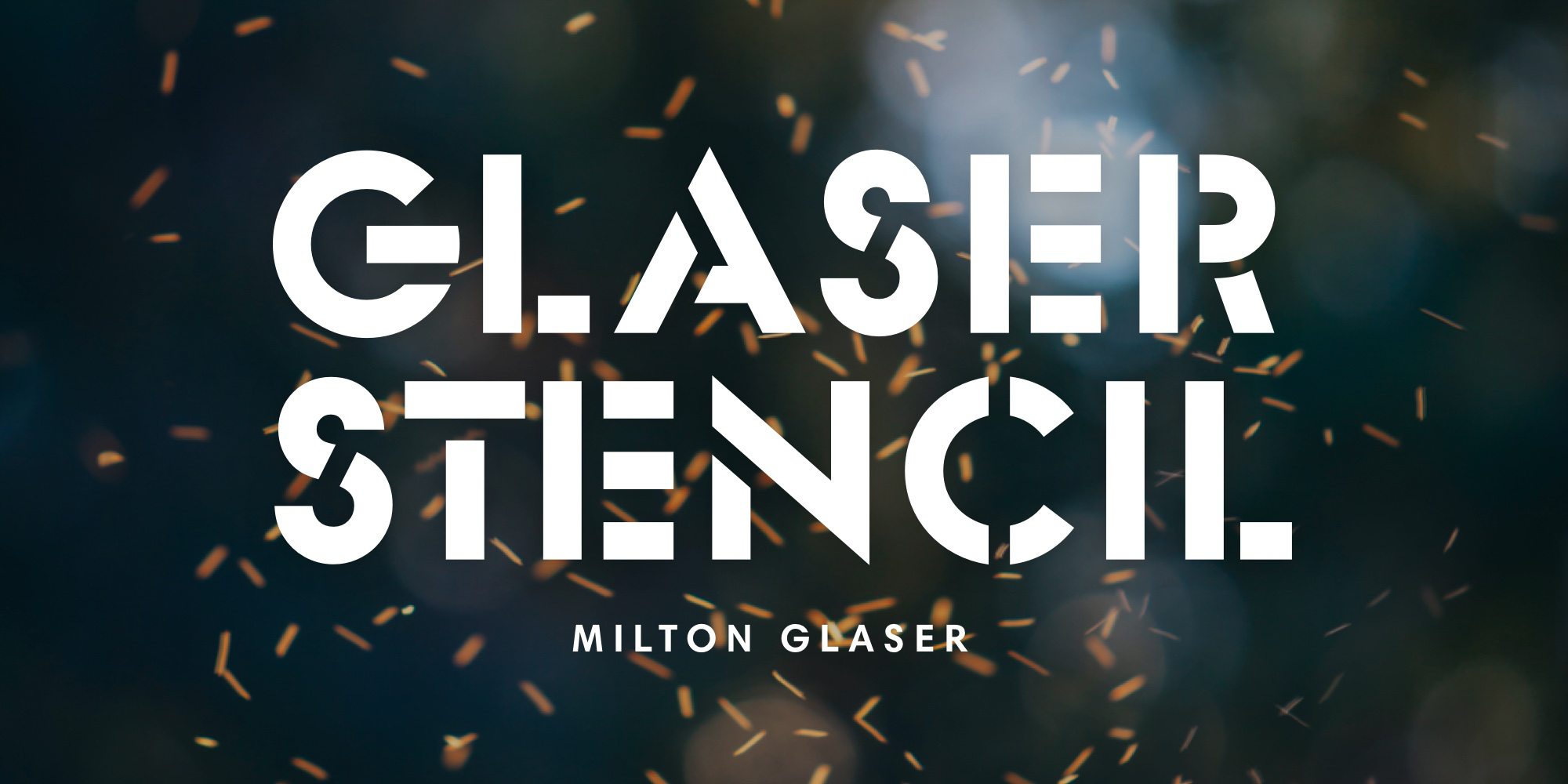
Glaser Stencil Font Free Download delivers iconic typography that combines graphic design history with contemporary functionality for memorable design applications. This commercial font requires purchase for business use, but you can download it for free for testing purposes to evaluate its distinctive stencil characteristics in your creative projects.
Glaser Stencil Font excels across diverse design applications including graphic design studio branding, protest poster recreations, vintage advertising campaigns, artistic exhibition materials, cultural institution communications, design education publications, creative agency presentations, and contemporary art projects. Its historic character makes it particularly effective for projects requiring design authority while maintaining artistic authenticity, ensuring your designs convey creative excellence and graphic design heritage across both digital platforms and artistic print materials.
What makes Glaser Stencil Font truly exciting is its masterful interpretation of Milton Glaser's influential design legacy enhanced with modern typographic precision that creates compelling artistic communications. The font features boldly crafted letterforms that incorporate iconic stencil proportions and design elements reminiscent of legendary graphic design work and protest poster aesthetics while maintaining excellent readability and professional application. Its distinctive character construction draws inspiration from the golden age of graphic design and American visual culture, creating text that feels both historically significant and contemporarily relevant. The font's optimized spacing and artistic character relationships ensure superior performance across various creative applications while preserving the characteristic boldness that defines its design personality.
Glaser Stencil Font offers a comprehensive type family designed to support diverse artistic and design heritage requirements. The family typically includes regular and bold weights, complemented by various stencil variations that provide complete flexibility for graphic design typography compositions. Many versions feature extended character sets with design symbols, artistic ornaments, and specialized glyphs that enhance authentic graphic design aesthetic applications.
The Glaser Stencil Font Free Download represents exceptional value for designers working on artistic and design heritage projects across multiple sectors. Whether developing creative studio identity, creating design exhibition materials, designing cultural communications, or producing artistic education content, this font delivers consistent authenticity and memorable design appeal. Its graphic design characteristics make it particularly effective for industries including design studios, art galleries, cultural institutions, and design education sectors seeking to communicate creative excellence and design heritage.
For maximum effectiveness, Glaser Stencil Font combines powerfully with bold color schemes and artistic design elements that reinforce its creative message. Its iconic presence excels in headline applications while maintaining excellent performance in design communication contexts. The font's artistic sophistication and design heritage make it an invaluable tool for creating memorable communications that resonate with audiences appreciating graphic design history and creative innovation.